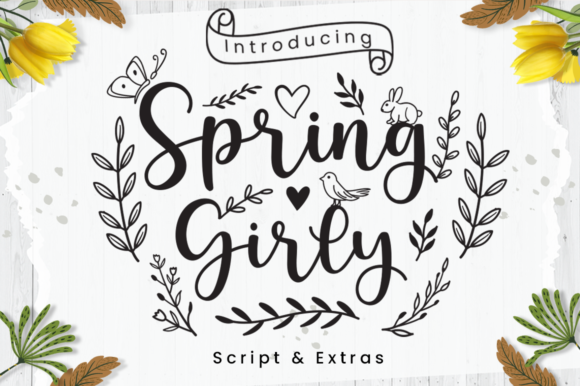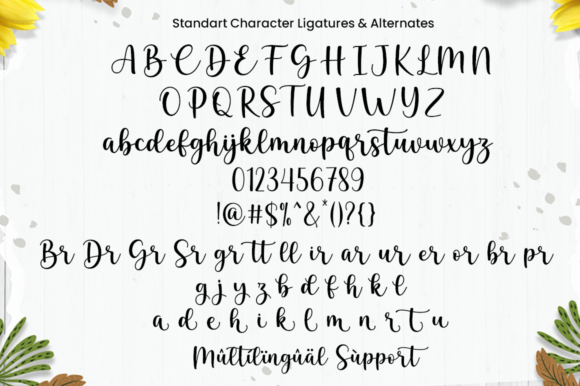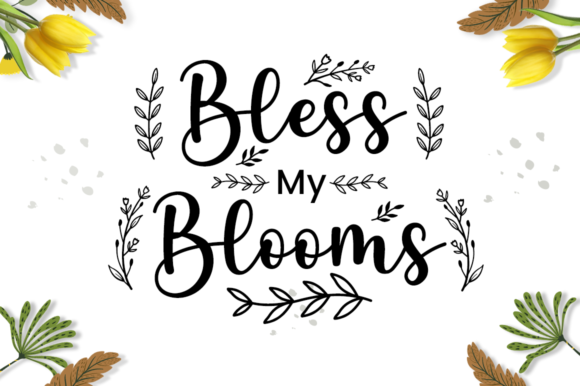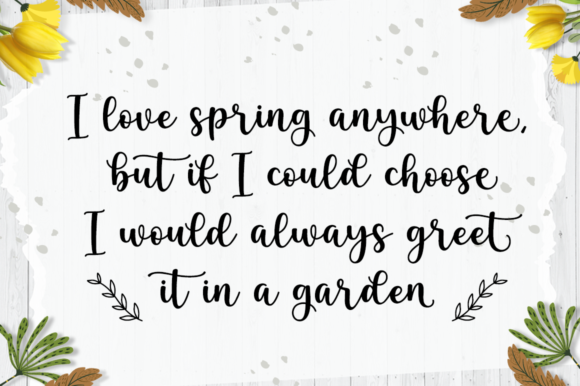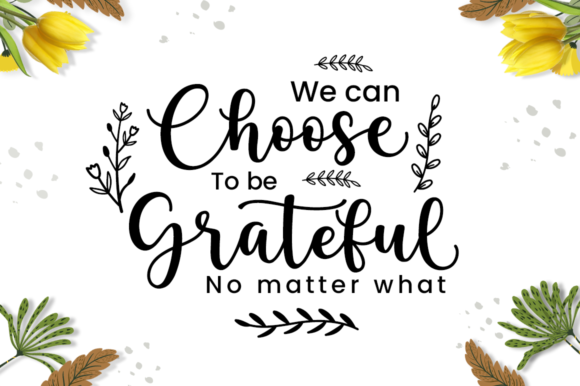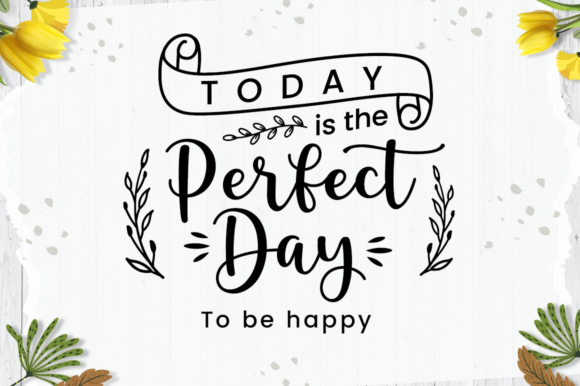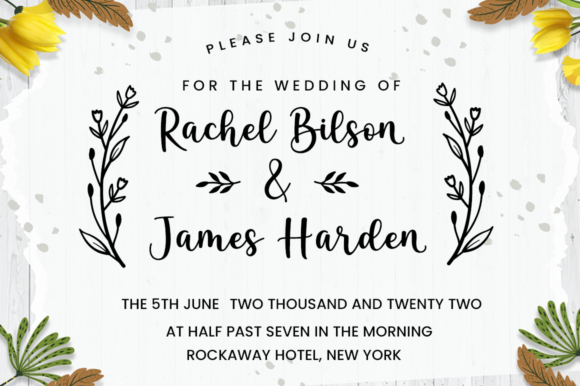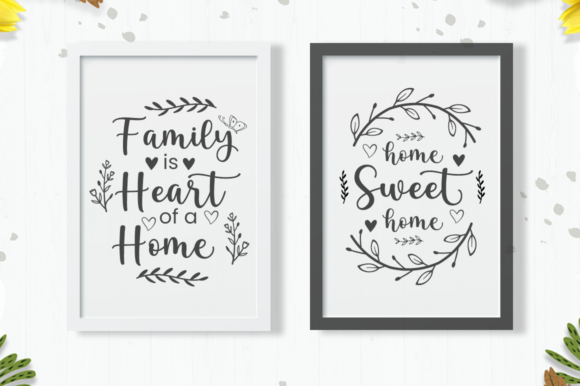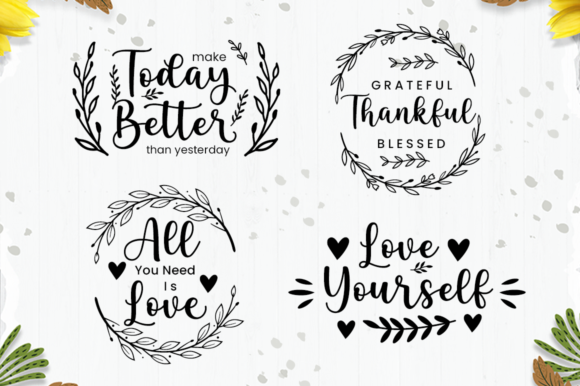
Spring Girly Font
About Spring Girly Font
Spring Girly is a stylish and chic script font designed to bring a fashionable and sophisticated touch to your projects. With its trendy and elegant design, this font is well-suited for various applications, including product packaging, branding projects, magazine covers, social media, weddings, and more. The stylish and chic characteristics of Spring Girly make it an excellent choice for conveying a contemporary and refined vibe.
In product packaging, Spring Girly’s stylish and chic script contributes to a modern and visually appealing design. The font’s trendy strokes can enhance the overall aesthetic of the packaging, creating a sleek and memorable look that resonates with a fashion-forward audience.
For branding projects, Spring Girly’s chic script can be used to create logos, headlines, or other elements that convey a sense of modernity and sophistication. The font’s elegant design adds a touch of uniqueness, making your brand stand out with a stylish flair.
In magazine covers and social media graphics, Spring Girly’s trendy and chic style provides a fashionable and visually appealing typography choice. Whether used for headlines, captions, or quotes, the font adds a touch of elegance to your visual content.
For wedding-related designs or any project that requires a stylish and chic touch, Spring Girly can be applied to invitations, stationery, or other elements, adding a contemporary and refined feel.
Whether expressing words against a background or creating a stylish and eye-catching look for various projects, Spring Girly’s stylish and chic script font offers a sleek and modern option.
In summary, Spring Girly is more than just a font; it’s a stylish and chic script font that enhances the visual appeal of your projects. Whether applied to product packaging, branding, magazine covers, social media, weddings, or other design contexts, Spring Girly brings a contemporary and refined aesthetic that elevates your typographic compositions with flair and style.